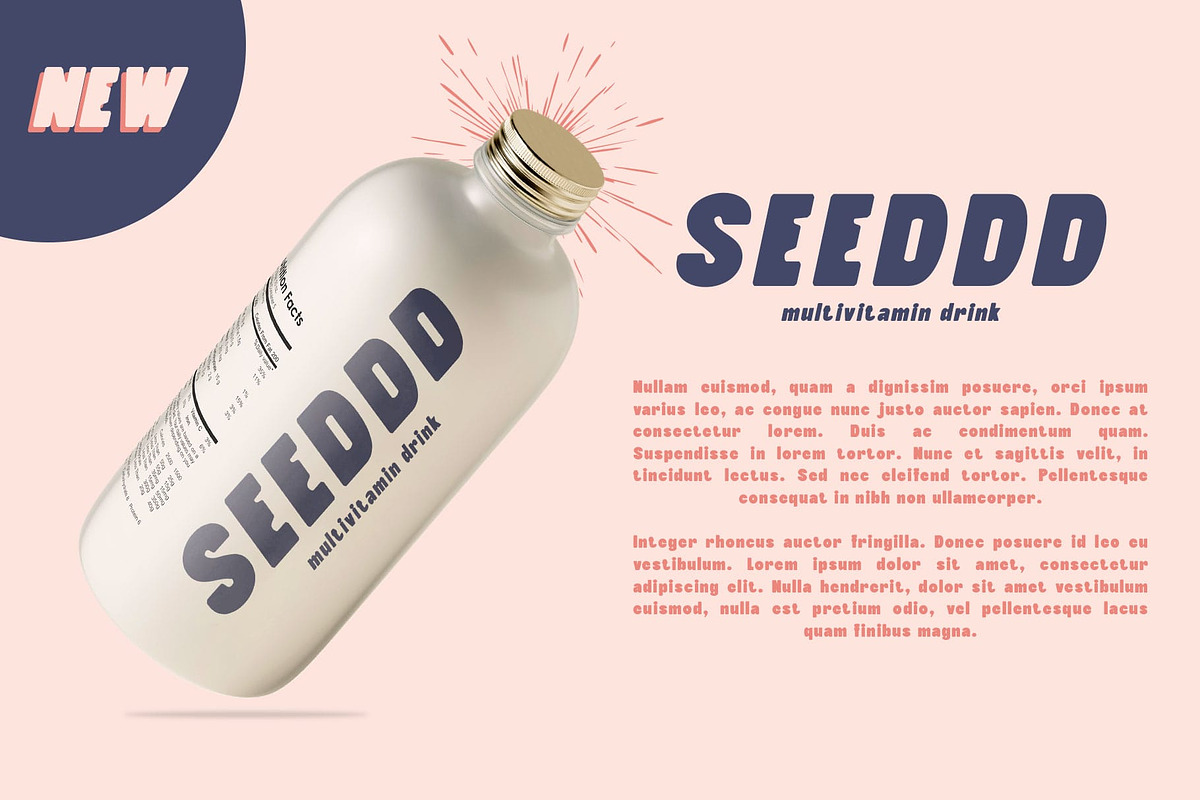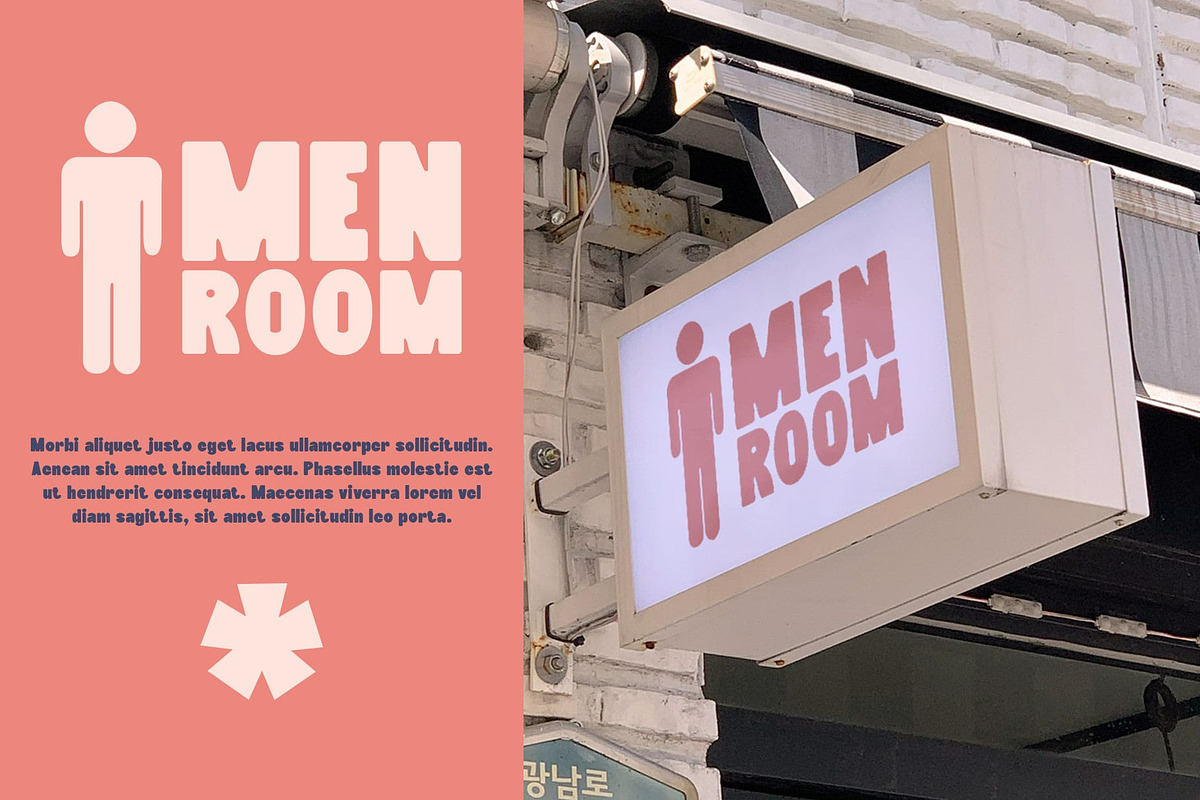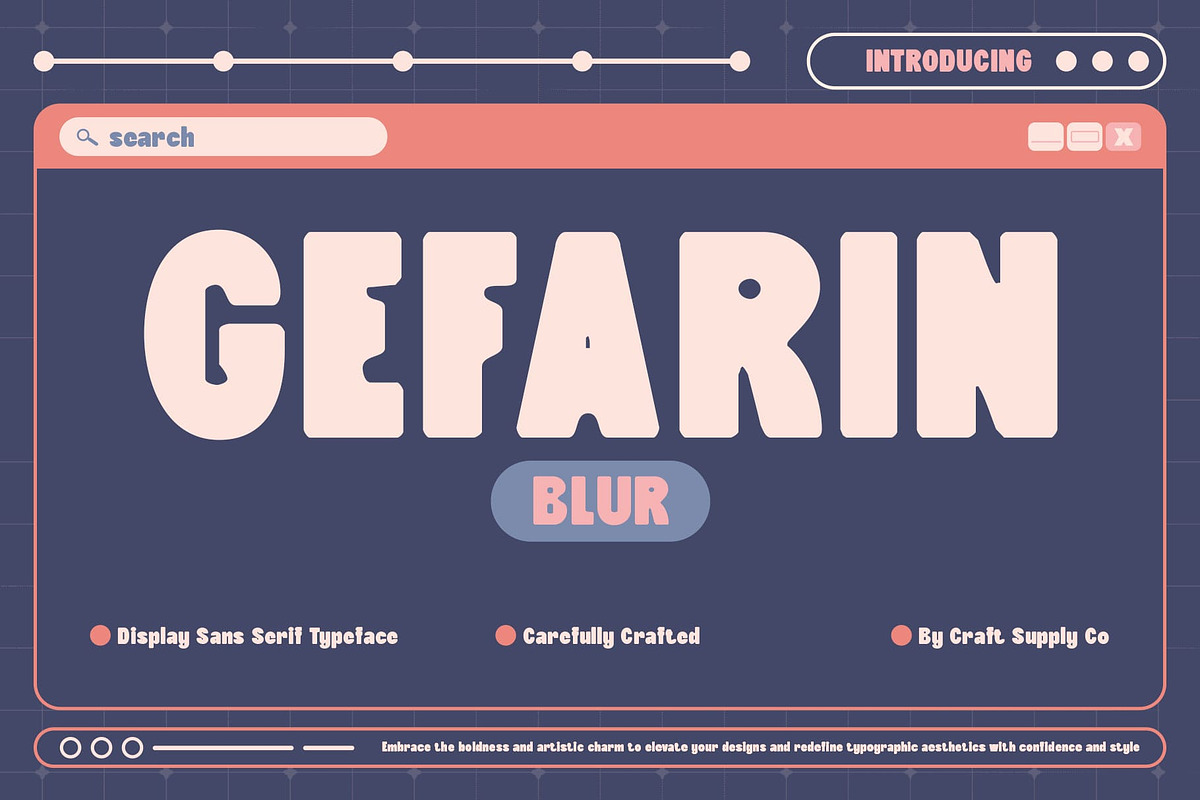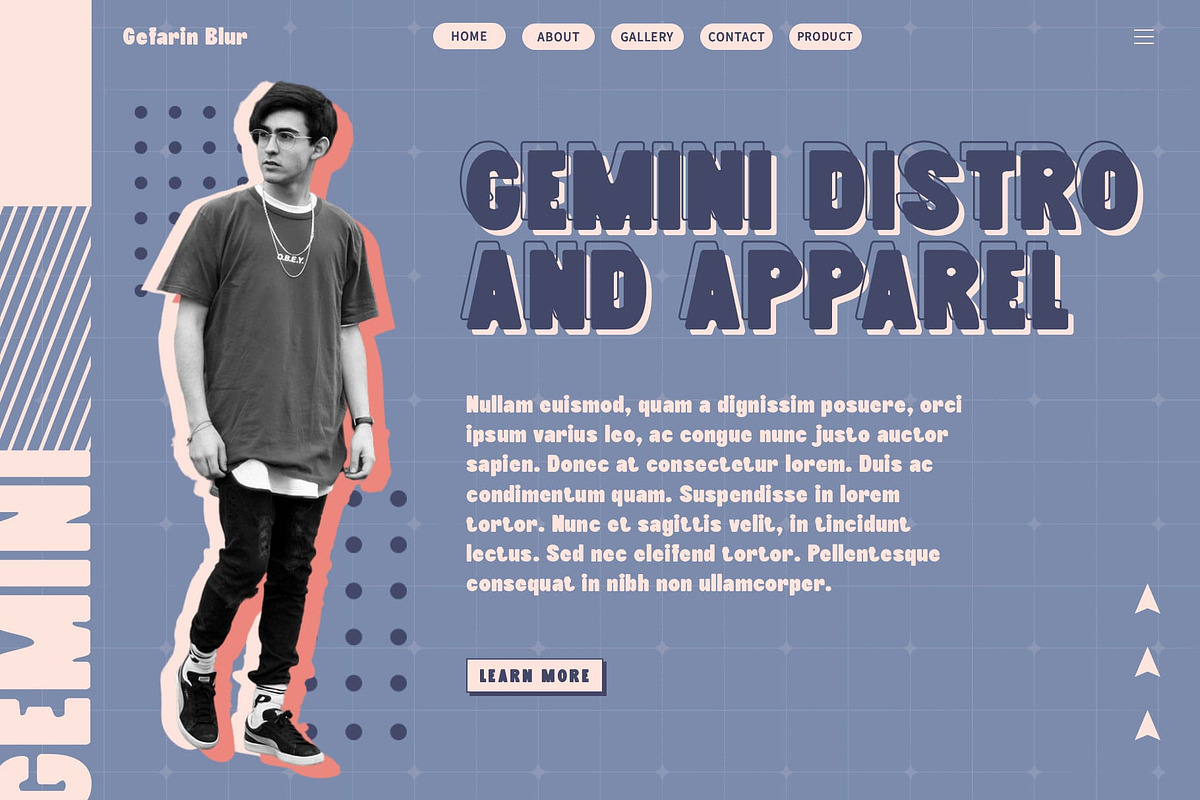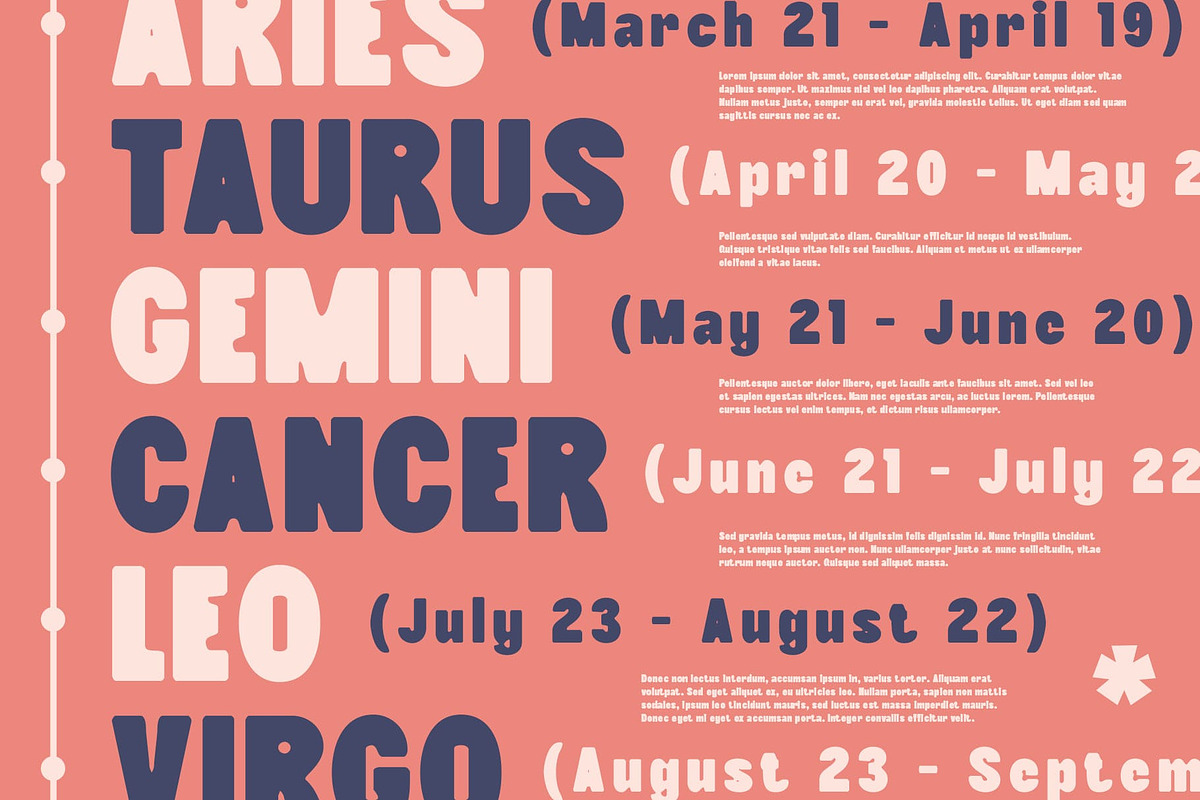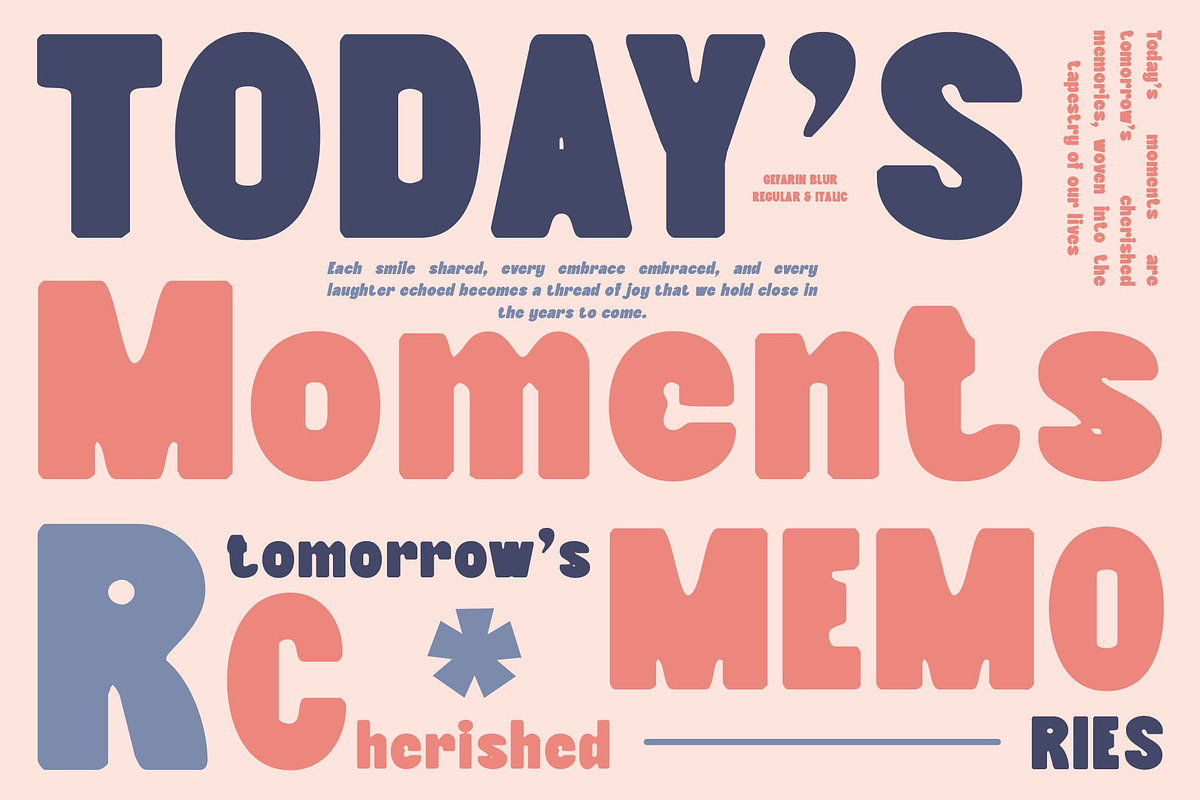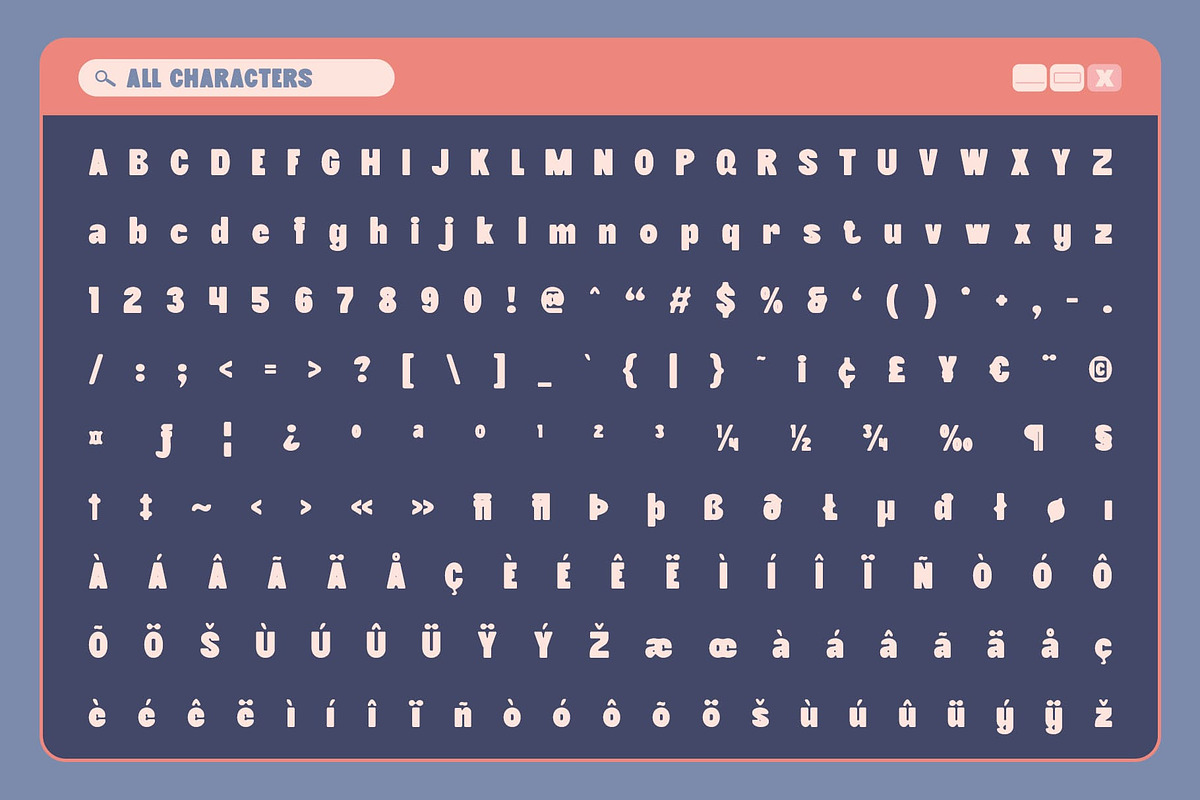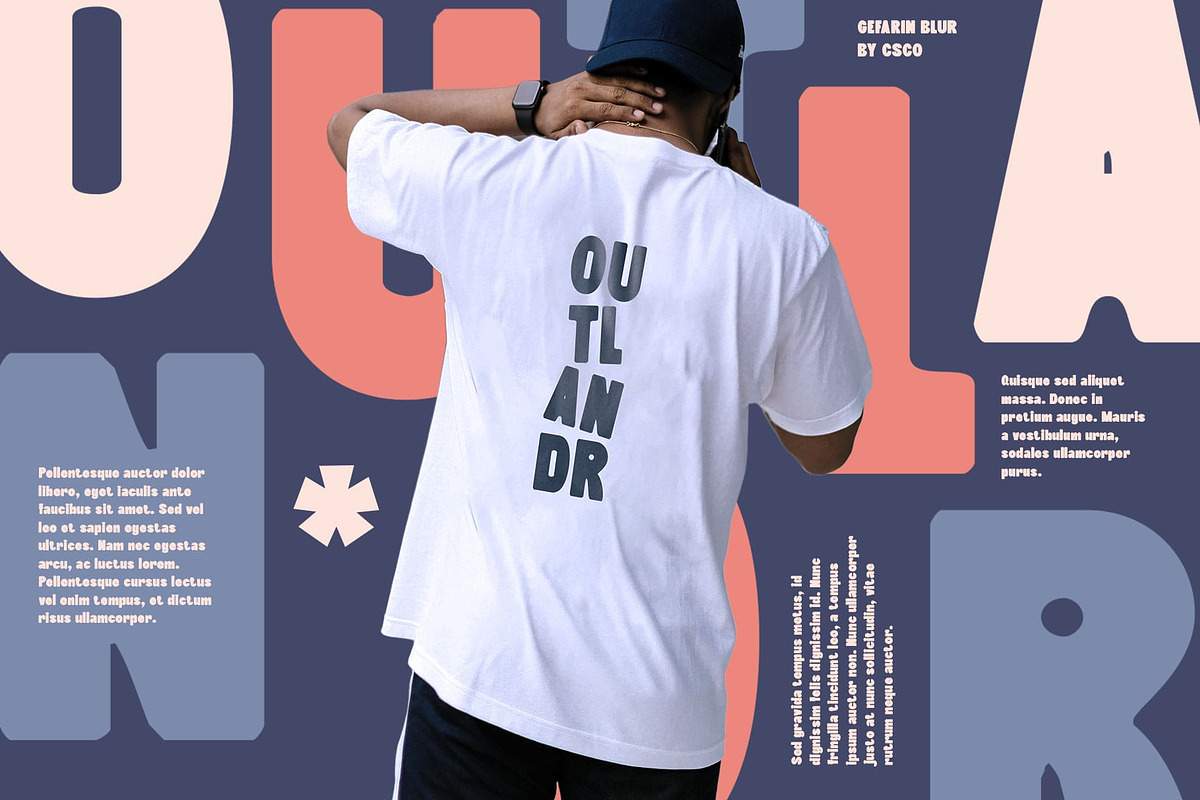
Gefarin Blur
Gefarin Blur Font: Bold Sans Serif with Funky Flair
Bold Sans Serif Font with Unique Design Gefarin Blur is a bold sans serif font distinguished by its thick, solid letterforms and a distinctive funky blur effect. This striking design combines robust shapes with a playful touch, creating a unique and energetic appearance.
Funky Blur Effect for Added Dimension The blur effect introduces a sense of dimension and depth, enhancing the font’s boldness with a dynamic, expressive quality. This blend of boldness and blur creates a visually captivating style that stands out in any design.
Dynamic and Playful for Eye-Catching Projects Gefarin Blur is ideal for projects that require a creative and eye-catching touch. Its dynamic design makes it perfect for posters, branding, and graphic designs aimed at capturing attention with a bold, fun style.
Perfect for Creative and Attention-Grabbing Designs Whether you’re designing vibrant posters, engaging branding materials, or expressive graphic elements, Gefarin Blur adds a bold and playful dimension to your projects. Its unique blend of thickness and blur ensures a memorable and impactful visual impression.